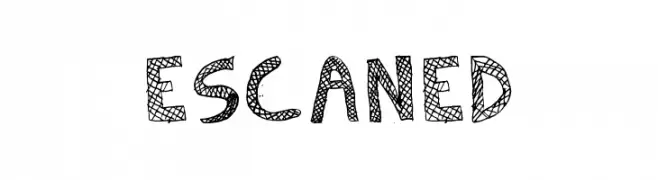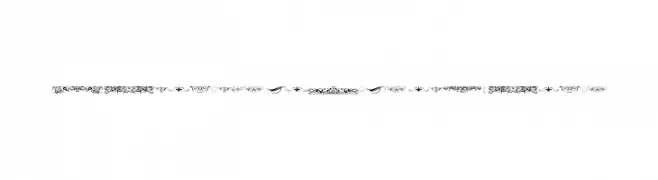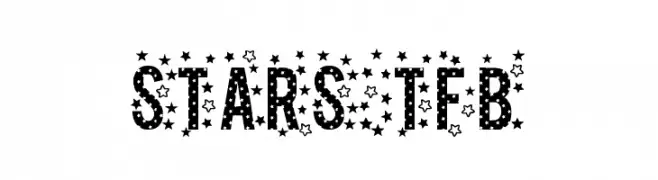
Ornate vintage decorative elements and label frames.
A digital display font with segmented, geometric characters.
Ornate and vintage-inspired decorative frames and flourishes.
A decorative font filled with stars, offering a playful and whimsical style.
A decorative font with intricate floral patterns enhancing each character.
A bold, hand-drawn font with a textured, cross-hatched pattern.
A diverse set of iconic brand logos in their original typographic treatments.
Ornamental border and flourish collection with vintage, decorative style.
A decorative font featuring stylized chess pieces and boards.